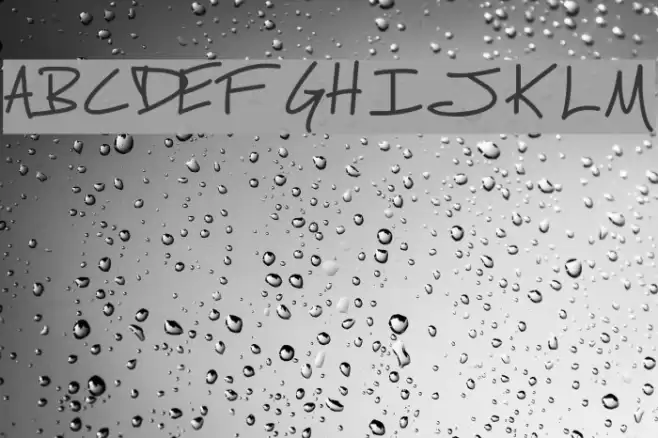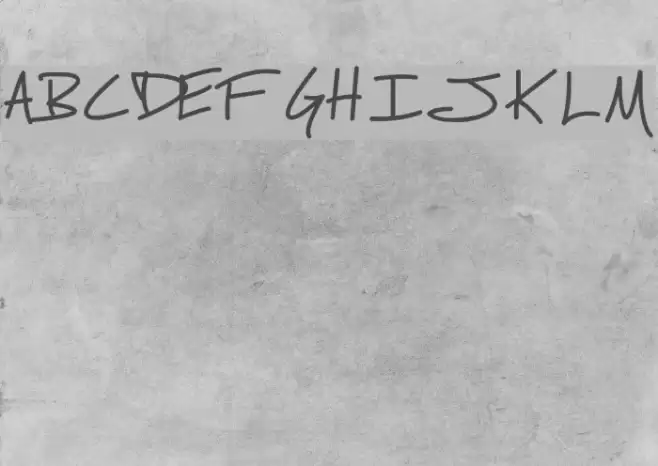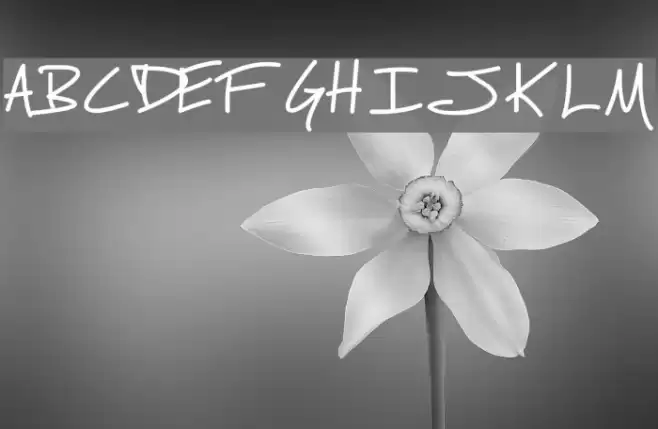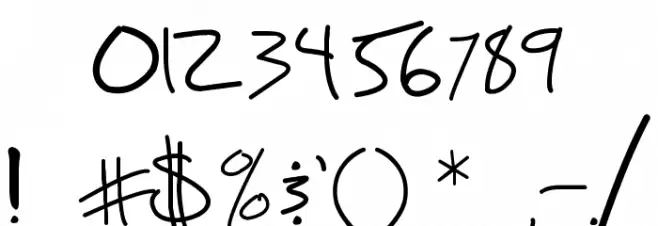
Fh_Script Font
Fh_Script Description
This font features a casual, handwritten style with a playful and informal appearance. The letters are slightly slanted, giving it a dynamic and lively feel. The strokes are uneven, mimicking the natural flow of handwriting, which adds a personal touch. The uppercase letters are bold and prominent, while the lowercase letters maintain a consistent flow with occasional loops and curls. The numbers are clear and legible, matching the overall style of the alphabet. Special characters are creatively designed, maintaining the handwritten aesthetic.
A playful, handwritten font with a casual and dynamic style from Handwritten fonts.
- Proposed Projects: Ideal for personal notes, invitations, greeting cards, and informal branding projects.
- Overall Style: Casual
- Use Case: Logos, Invitations, Greeting Cards